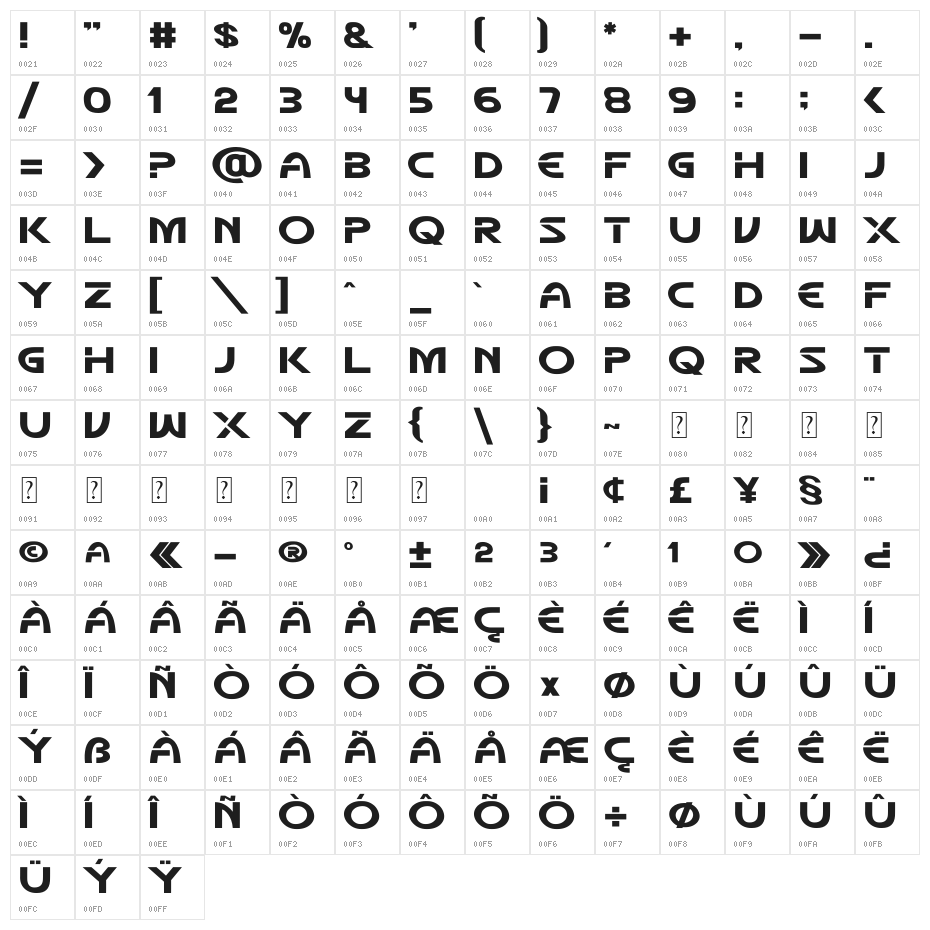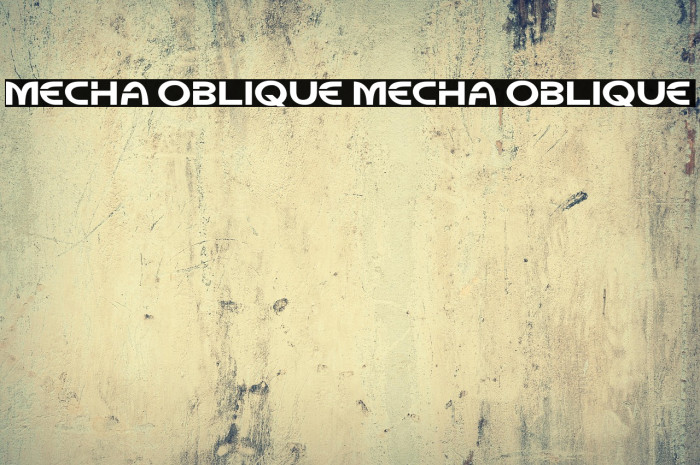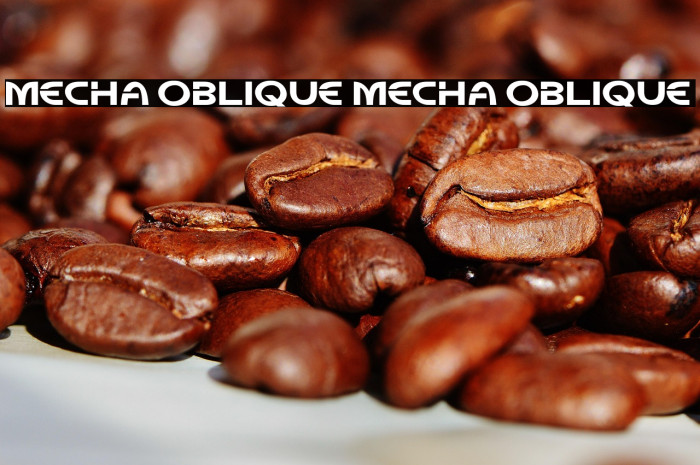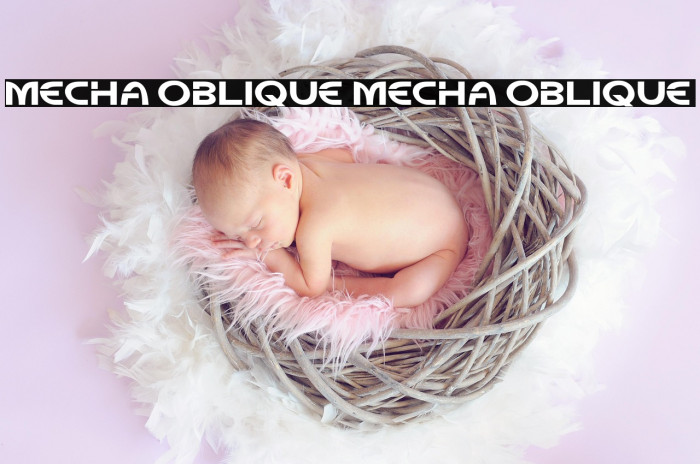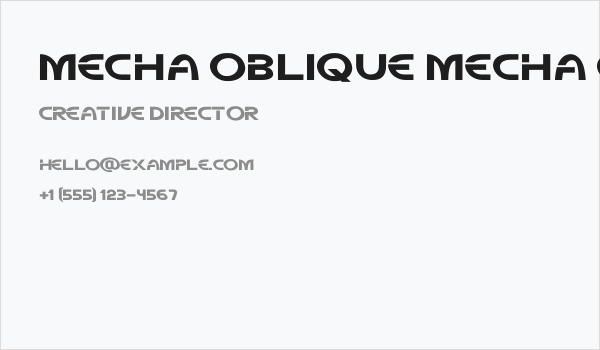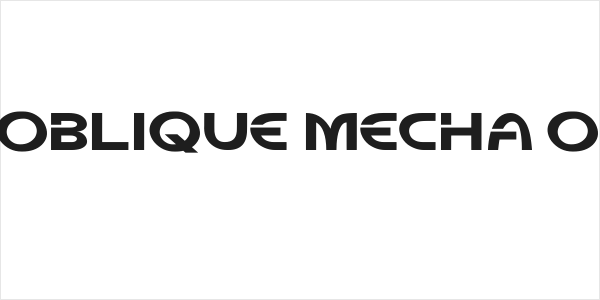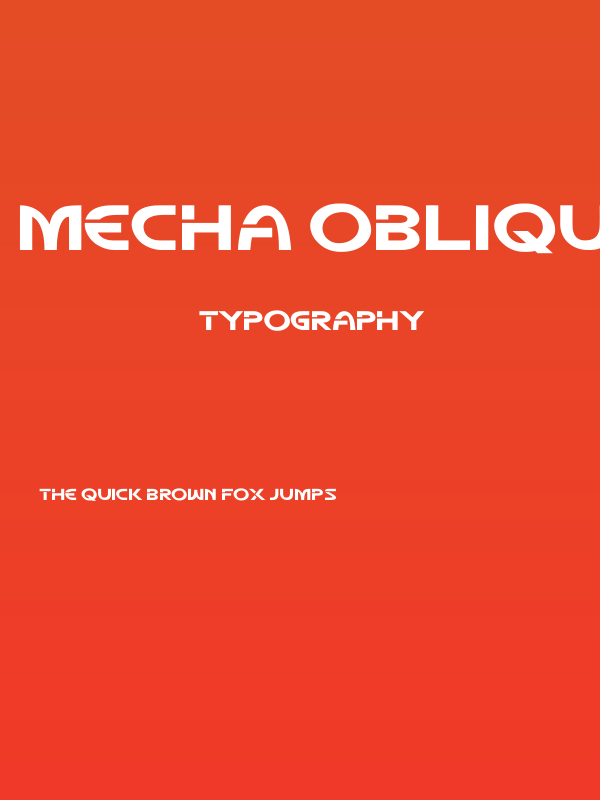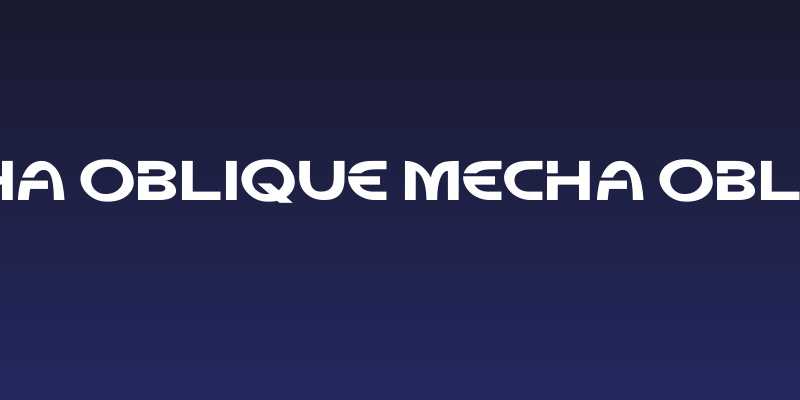
Mecha Oblique Font
Mecha Oblique Description
This font features a futuristic and mechanical design, characterized by its bold, angular shapes and sharp edges. The uppercase letters are distinct with a geometric style, while the lowercase letters maintain a consistent angularity that complements the uppercase. The numerals are equally bold and follow the same design principles, ensuring uniformity across all characters. Special characters are designed to match the overall aesthetic, making them suitable for a variety of uses where a modern, tech-inspired look is desired.